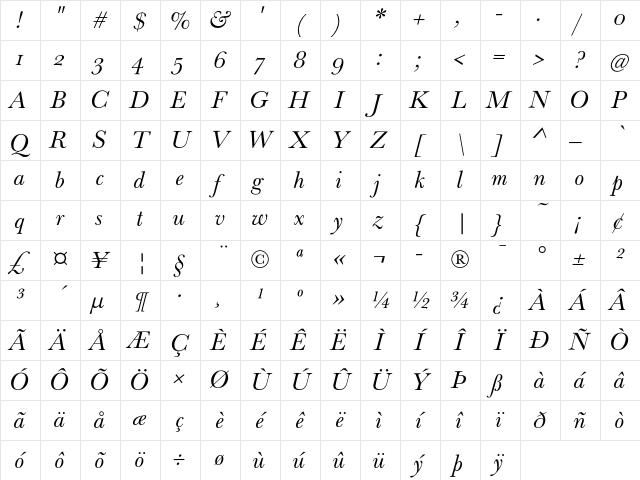
Complete RoBaskerville Book Italic OsF glyph index. Displaying only characters natively supported by RoBaskerville Book Italic OsF font.
RoBaskerville is a composed and adaptable typeface that performs quietly and consistently across a wide range of design contexts. The slanted form adds forward momentum and visual energy.
Pro Tip: Use RoBaskerville for emphasis, pull quotes, and subheadings where its slanted energy can add rhythm to the layout.